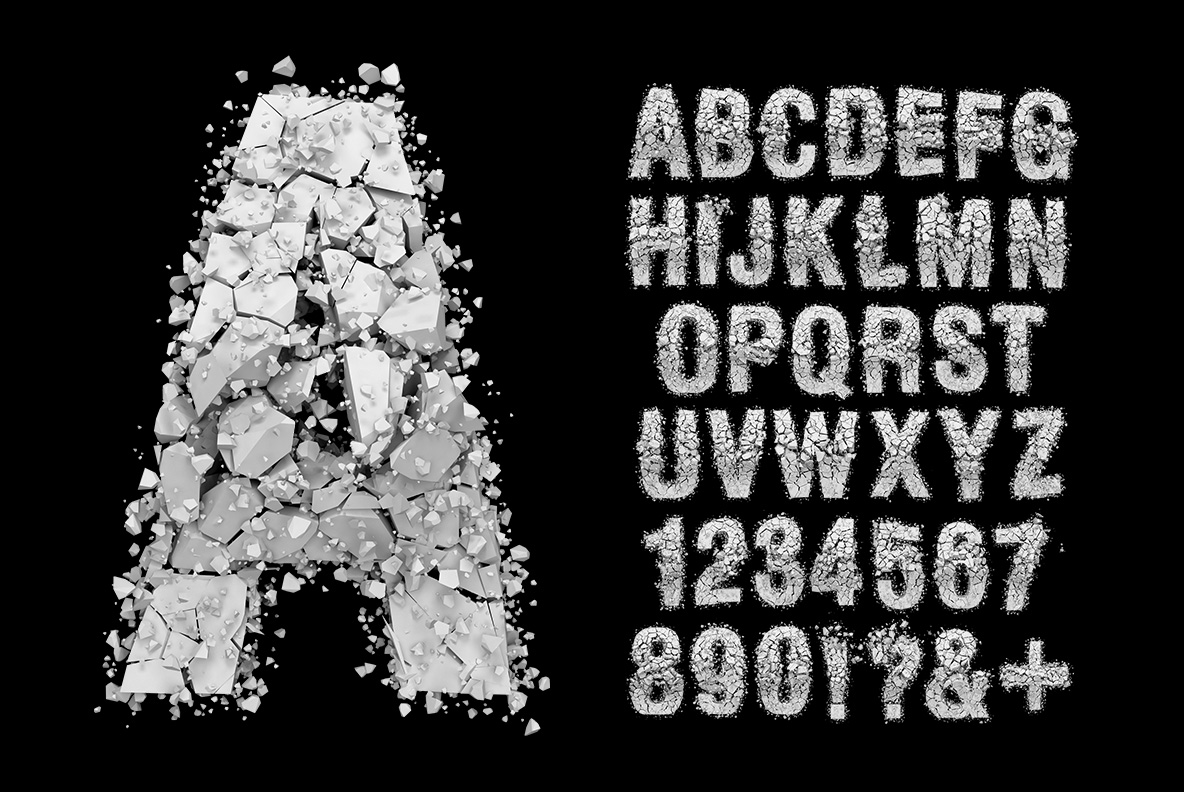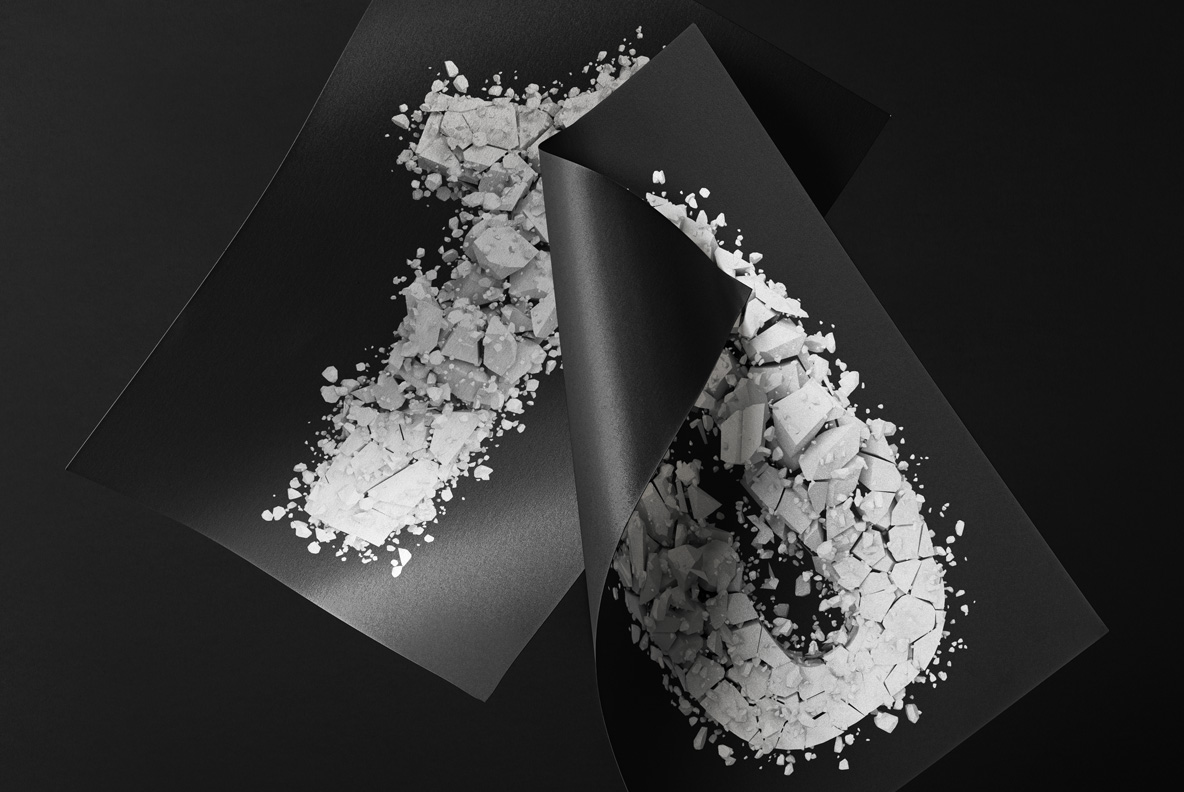
Particle Rock Font. Shattered White Stone
White stone caught mid-explosion. Each letter holds together at the core, then breaks into chips and dust that fly off into the space around it. Fragments range from slabs to specks, all in the same chalky white. It is the only alphabet here that looks like it is actively falling apart, entirely on purpose.
Stone, One Frame After the Break
Something hit this alphabet hard. The core of each letter survives as cracked white stone, while chips, slabs and dust spray outward into the space around it. Fragments range from thumb-sized pieces down to specks, and all of them share the same chalky white. Because the debris thins as it travels, the eye still finds the letter underneath. So the effect reads as motion rather than damage.
How the Particle Rock Font Stays Readable
Keeping a shattered letter legible takes restraint, and the Particle Rock Font shows it. The surviving core is a heavy condensed sans, which gives the cracks somewhere to run without eating the shape. Debris concentrates on one side of each glyph rather than all around, since an even scatter would read as noise. Above all the dust stays fine near the edges. Naturally no two letters break the same way.
Animated preview of the Particle Rock Font shattering through its letters
Action Posters and Hard Subjects
Hard subjects suit hard imagery. Action film titles, sports campaigns, demolition and mining, metal record sleeves, energy drinks and disaster documentaries all take this without adjustment. The mockups run it across a black book, a yellow can set, a dark poster, a folded card and a navy box, so the scatter survives every ground. Besides, the loose fragments work on their own as a background texture. Meanwhile the finer dust still reads cleanly at small sizes.
Handling the Particle Rock Font
Dark poster spelling PARTICLE ROCK in shattered stone letters
Cracked alphabet and numerals of the Particle Rock Font beside a large letter A
Dark book cover with a shattered letter from the Particle Rock Font
Close view of the stone chips and dust thrown off by the Particle Rock Font
Navy box printed with a short word in the Particle Rock Font
Dark cards carrying a short line about rocks in the Particle Rock Font
Dark folded card with a shattered letter from the Particle Rock Font
Three black cans on yellow spelling a word in the Particle Rock Font
Transparent PNG letters and numerals of the Particle Rock Font on a checkered background